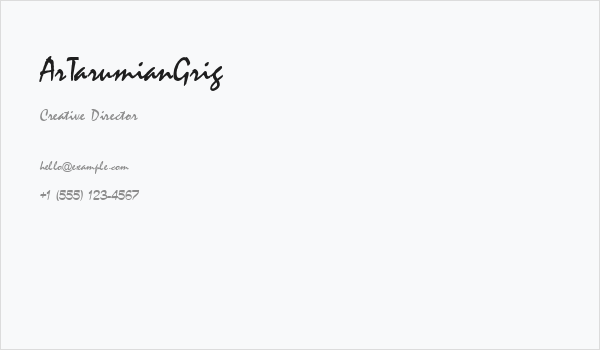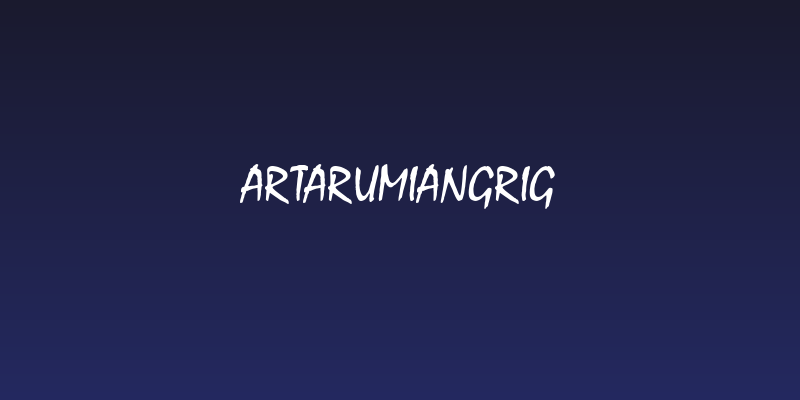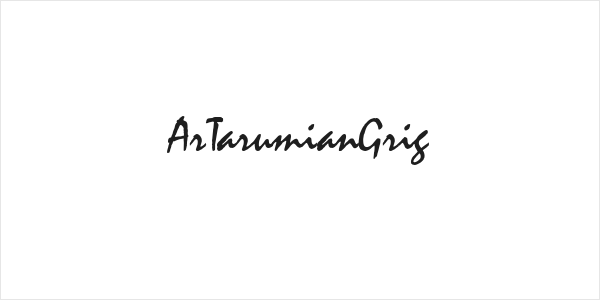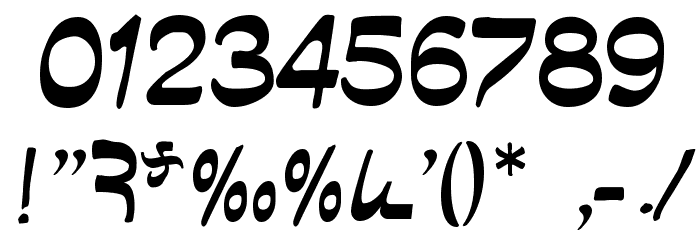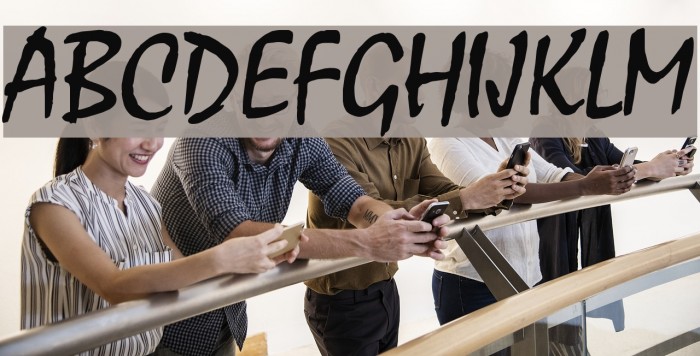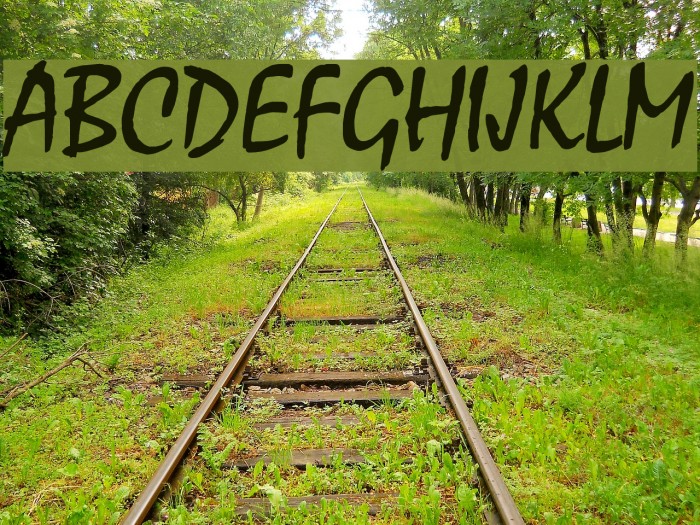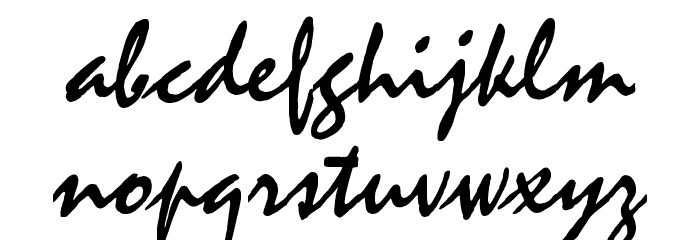
ArTarumianGrig Font
ArTarumianGrig Description
This font exudes a lively and dynamic energy with its bold, flowing script style. The uppercase letters are characterized by their sweeping curves and strong presence, while the lowercase letters maintain a consistent fluidity, offering a harmonious balance. The numerals are bold and slightly rounded, complementing the overall aesthetic. Special characters are creatively designed, adding a unique flair to the font. Its handwritten appearance gives it a personal and approachable feel, making it suitable for projects that require a touch of elegance and informality.